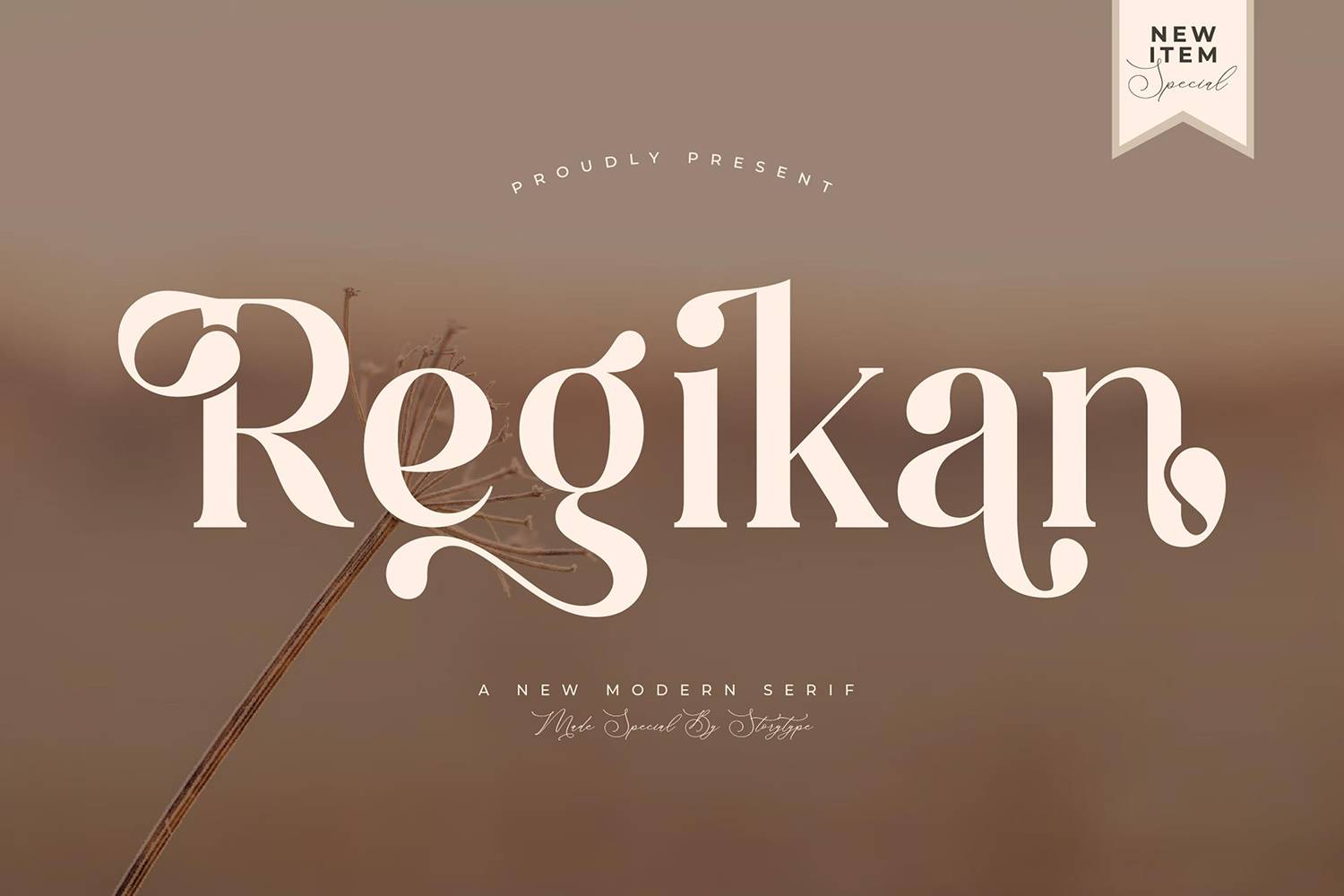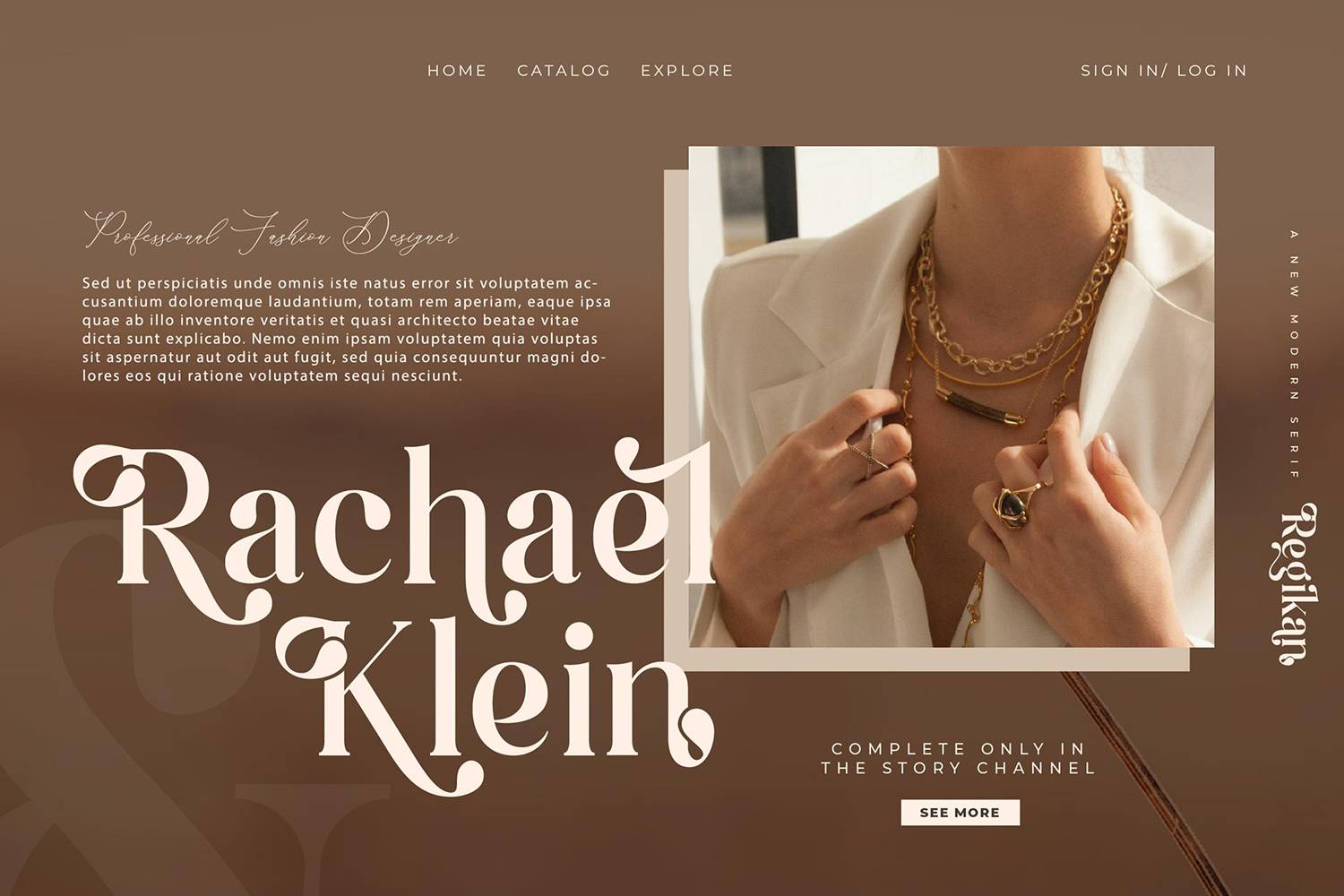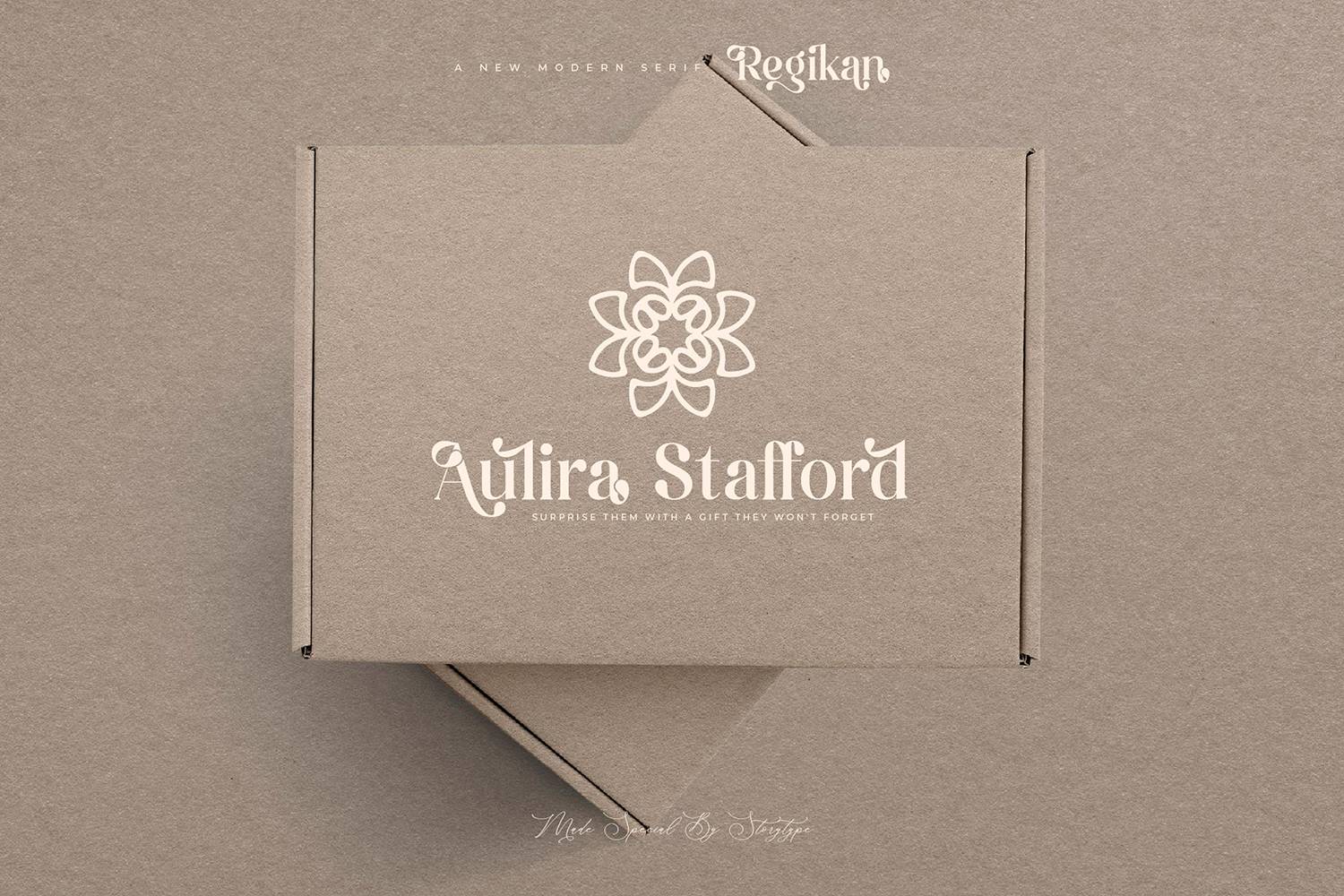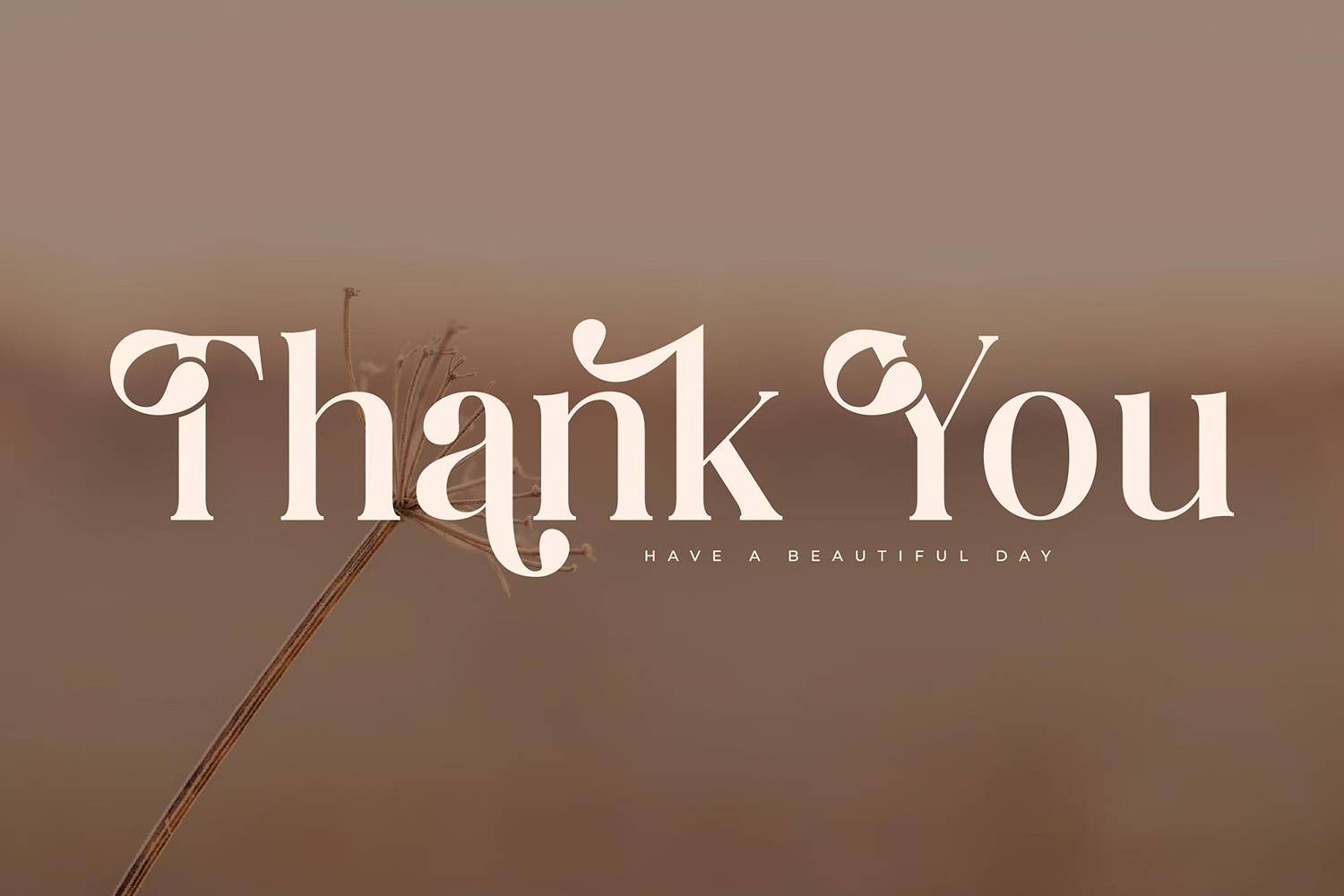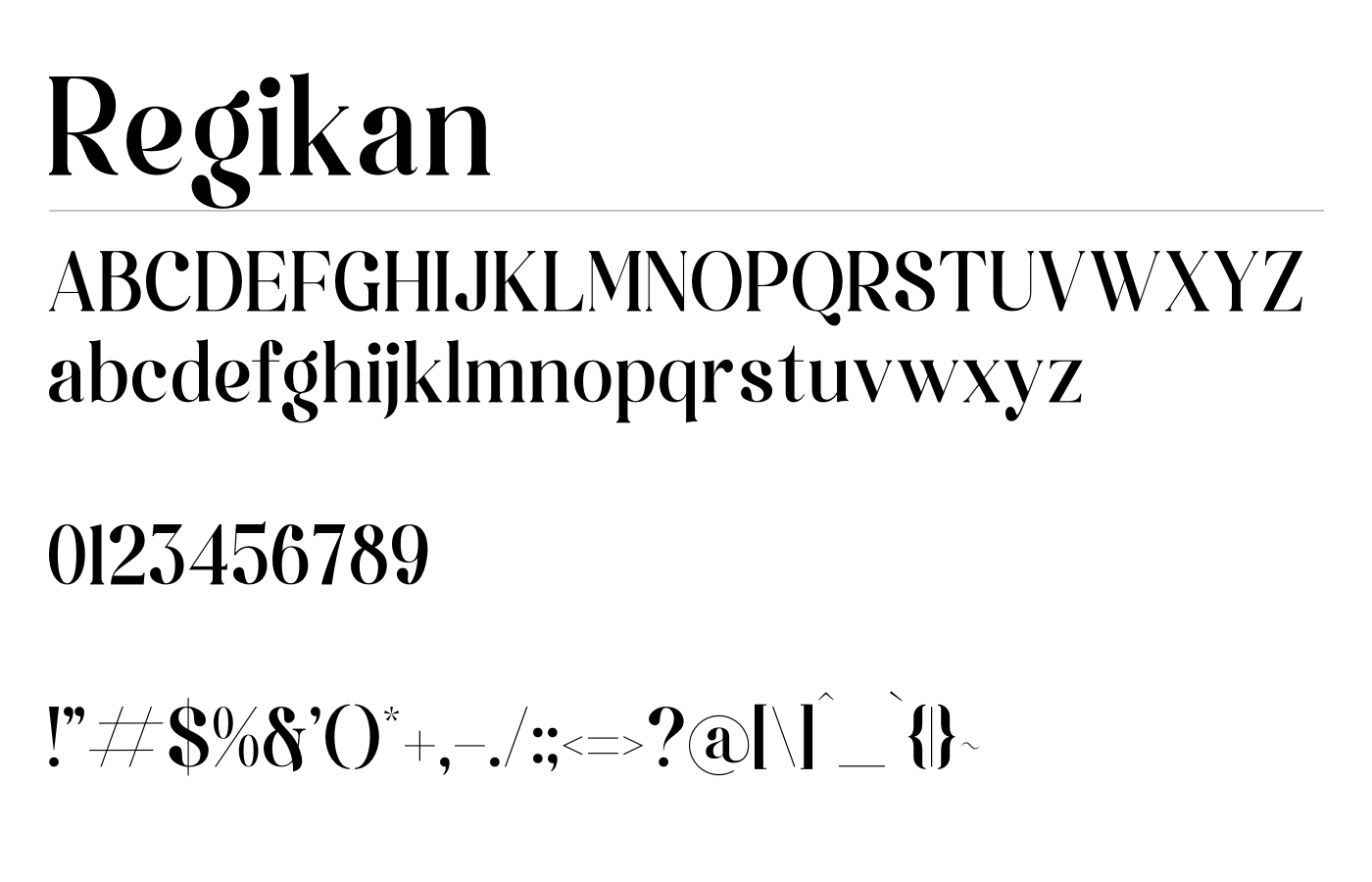
Regikan is a sophisticated serif font with high contrast between thick and thin strokes, featuring elegant bracketed serifs and distinctive letterforms like the single-story lowercase 'g' and stylized ampersand. Its refined and slightly condensed structure gives it a luxurious, classic feel ideal for fashion, editorial headlines, and upscale branding that seeks to convey elegance and timelessness. This font works beautifully in contexts where a strong, graceful impression is desired, making it perfect for logos, magazines, and high-end packaging.
Regikan Font
About Regikan Font